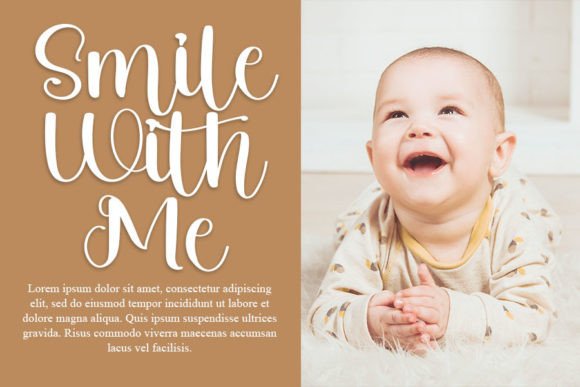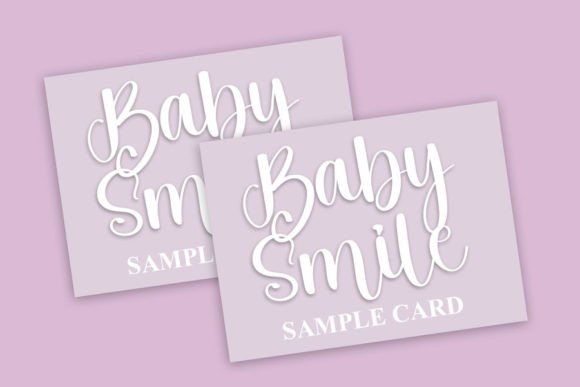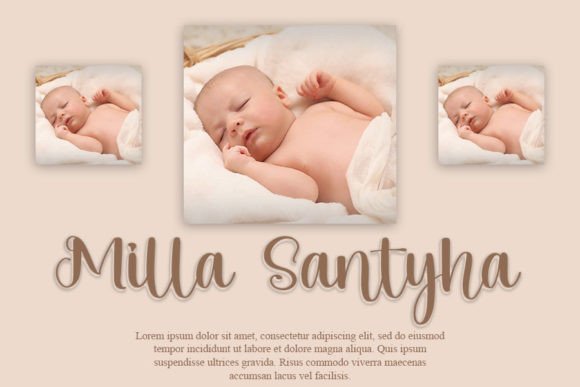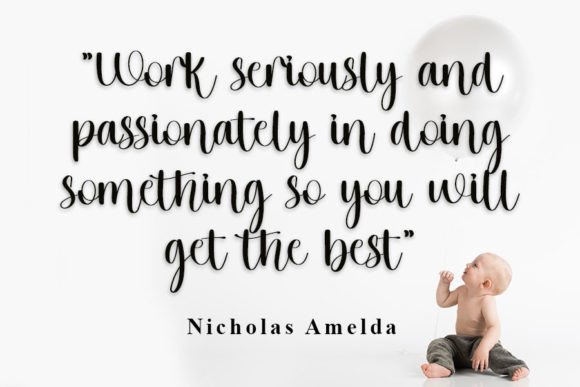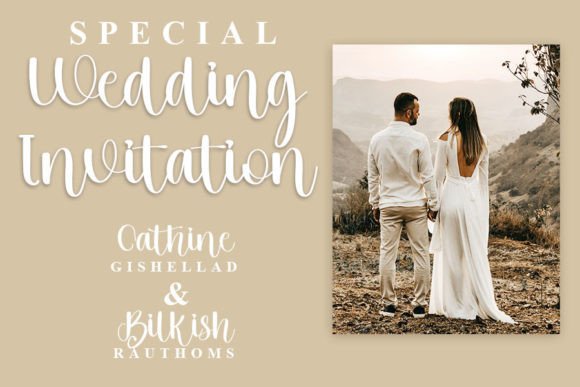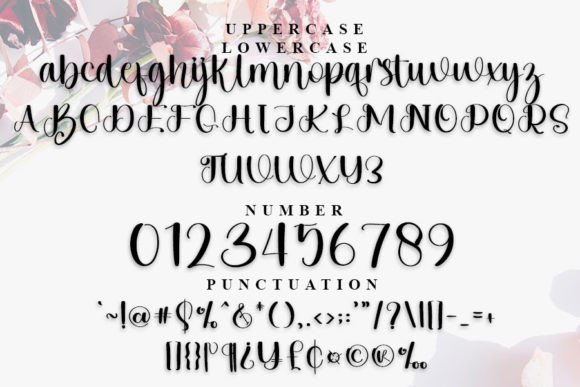
Introducing Blackid Font: Elevate Your Designs with Elegance and Sophistication
In the world of typography, fonts play a crucial role in conveying the tone and personality of a design. For designers and crafters seeking to add a touch of elegance and class to their projects, Blackid Font is an exceptional choice. This trendy handwritten font boasts a contemporary atmosphere and impeccable form, drawing inspiration from timeless classic calligraphy.
The Story Behind Blackid Font
Blackid Font is a carefully crafted typeface that combines the charm of traditional calligraphy with modern sensibilities. Its unique design ensures that it stands out in any project, whether you’re working on a logo, branding materials, packaging, or digital content. The font’s creator aimed to develop a typeface that not only pays homage to classic calligraphy but also meets the demands of contemporary design.
Key Features of Blackid Font
- Trendy and Contemporary: Blackid Font features a modern design that fits perfectly into today’s design trends, making it ideal for projects that require a fresh and stylish look.
- Handwritten with Precision: The font’s handwritten style gives it a personal and unique touch, adding warmth and character to any text.
- Inspired by Timeless Classics: Blackid Font draws inspiration from classic calligraphy, ensuring it carries an air of sophistication and elegance.
- Impeccable Form: Each letterform in Blackid Font is meticulously designed for clarity and beauty, ensuring that your text is not only stylish but also highly legible.
- Versatile: This font is incredibly versatile, suitable for a wide range of design projects, from logos and headings to invitations and quotes.
Uses of Blackid Font
Blackid Font’s versatility makes it an excellent choice for various design projects. Here are some popular uses:
- Branding and Logo Design: Create a lasting impression with a unique and elegant logo that captures the essence of your brand.
- Stationery and Invitations: Add a touch of class to your wedding invitations, greeting cards, and other stationery.
- Packaging Design: Stand out on store shelves with beautifully designed packaging that exudes elegance.
- Digital Content: Enhance your website, blog, or social media graphics with stylish text that engages your audience.
- Art and Craft Projects: Perfect for crafters, Blackid Font can be used in various craft projects, such as scrapbooking and DIY signage.
Tips for Using Blackid Font
To get the most out of Blackid Font, consider the following tips:
- Pair with Complementary Fonts: Combine Blackid Font with simpler fonts for body text to create contrast and visual interest.
- Adjust Letter Spacing: Experiment with letter spacing to find the perfect balance for your design.
- Play with Colors: While black is a classic choice, don’t be afraid to experiment with other colors that match your project’s theme.
Blackid Font is a stylish and versatile typeface that brings a touch of elegance and sophistication to any design project. Its contemporary design, inspired by timeless classic calligraphy, makes it a valuable addition to any designer’s toolkit. Whether you’re working on branding, packaging, digital content, or craft projects, Blackid Font is sure to elevate your designs and leave a lasting impression.